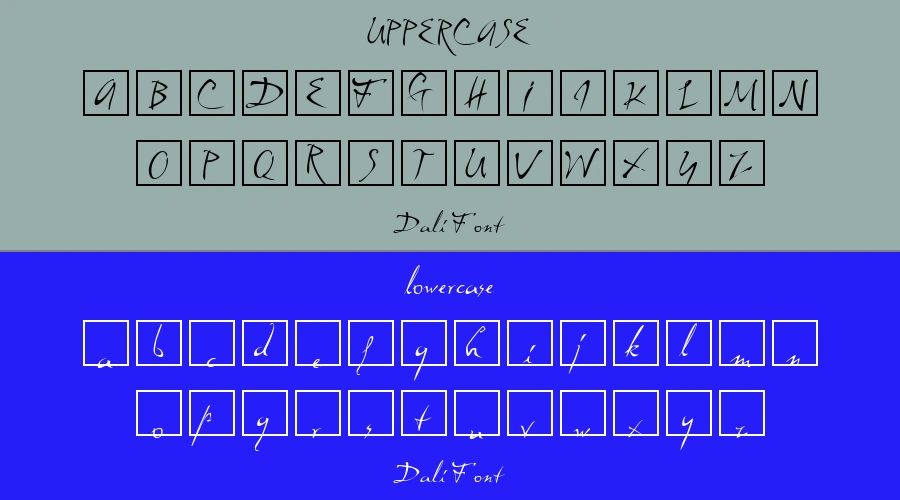
About Dali Font
Dali Font stands out for its distinctive combination of refined proportions and performance stability. Ideal for merchandise graphics, it provides the reliability and cultural resonance that professional projects demand. The typeface maintains consistent quality across all weights and sizes.
Key features include refined calligraphic strokes and practical pi characters, enhancing typographic expression. In point-of-sale displays applications, Dali Font demonstrates exceptional large format impact. The shoulder shape and cultural relevance contribute to its distinctive character and professional appeal.